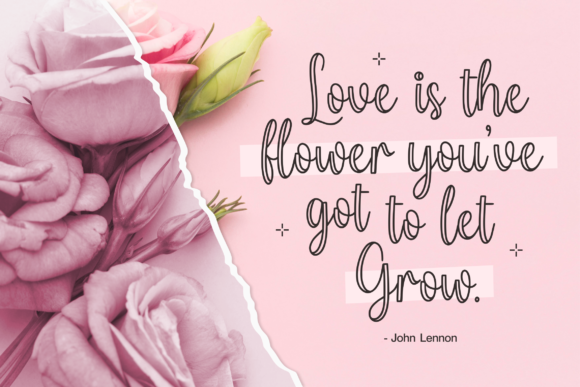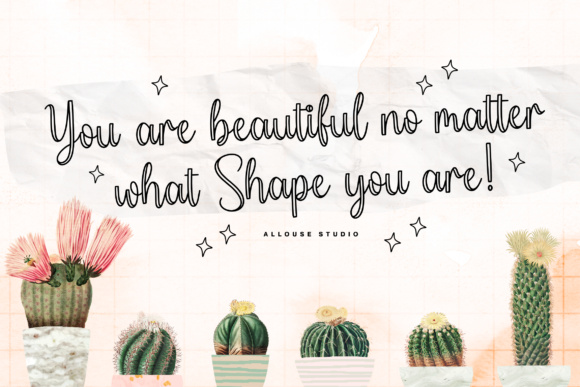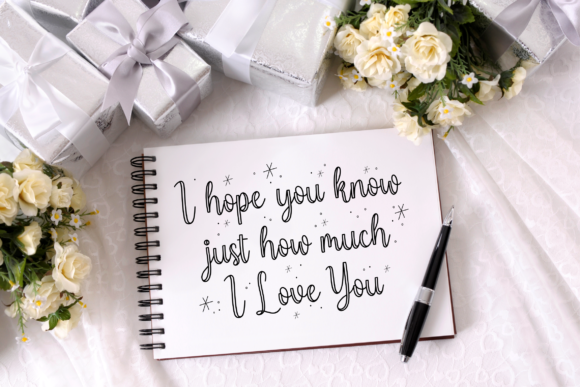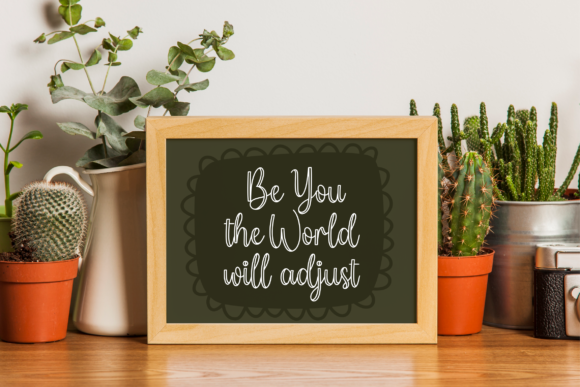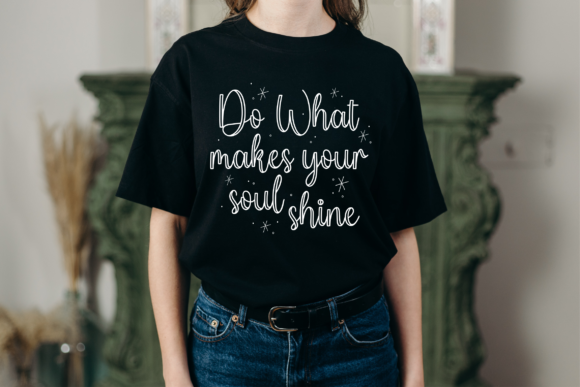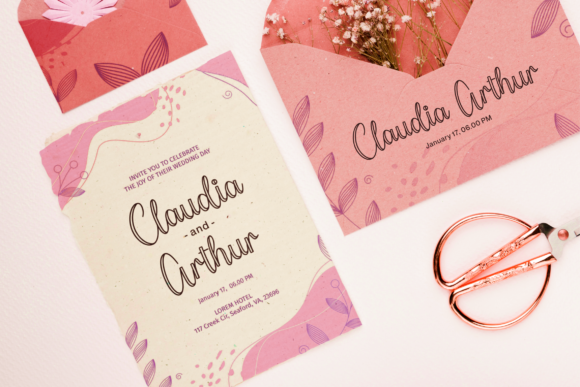
Introduction to Millerline Font
Millerline is a delicate, vintage styled script font.
It looks lovely on a variety of design ideas that require a dainty touch Whatever the topic, Millerline will be a wonderful asset to your font library, as it has the potential to enhance any creation.
Key Features of Millerline Font
Why Choose Millerline Font?